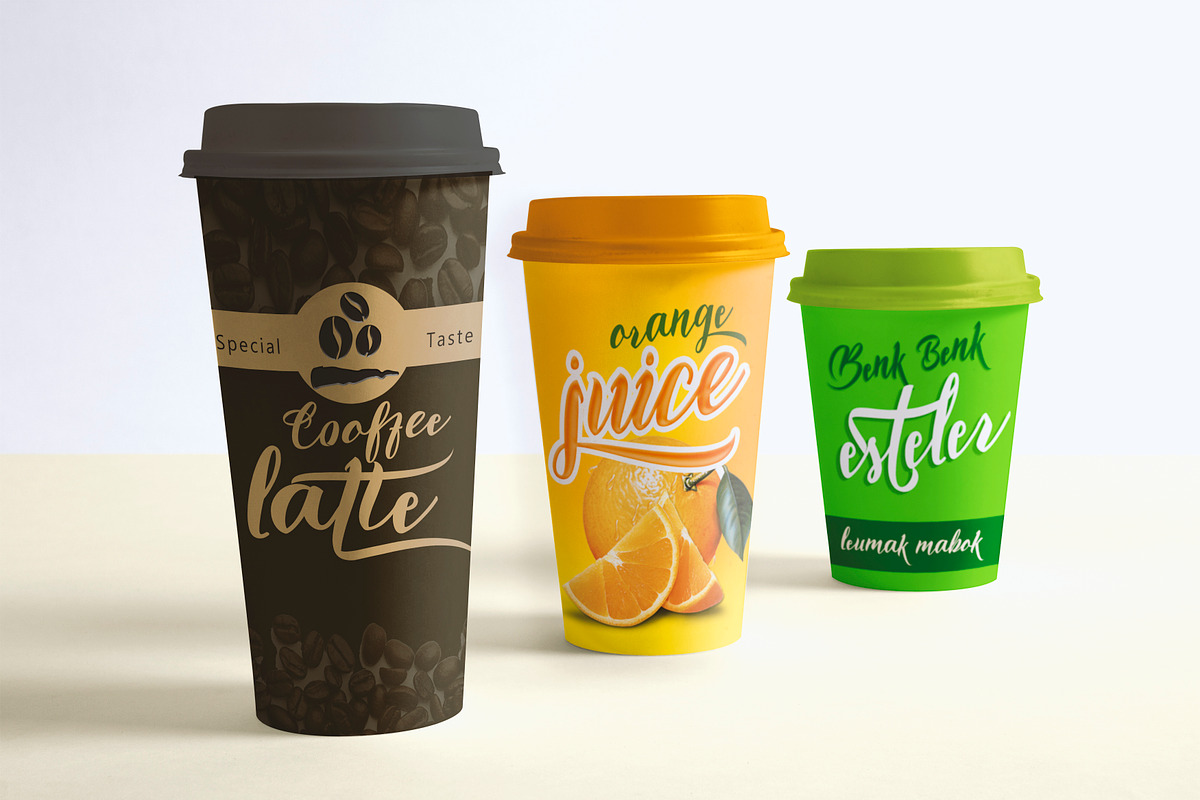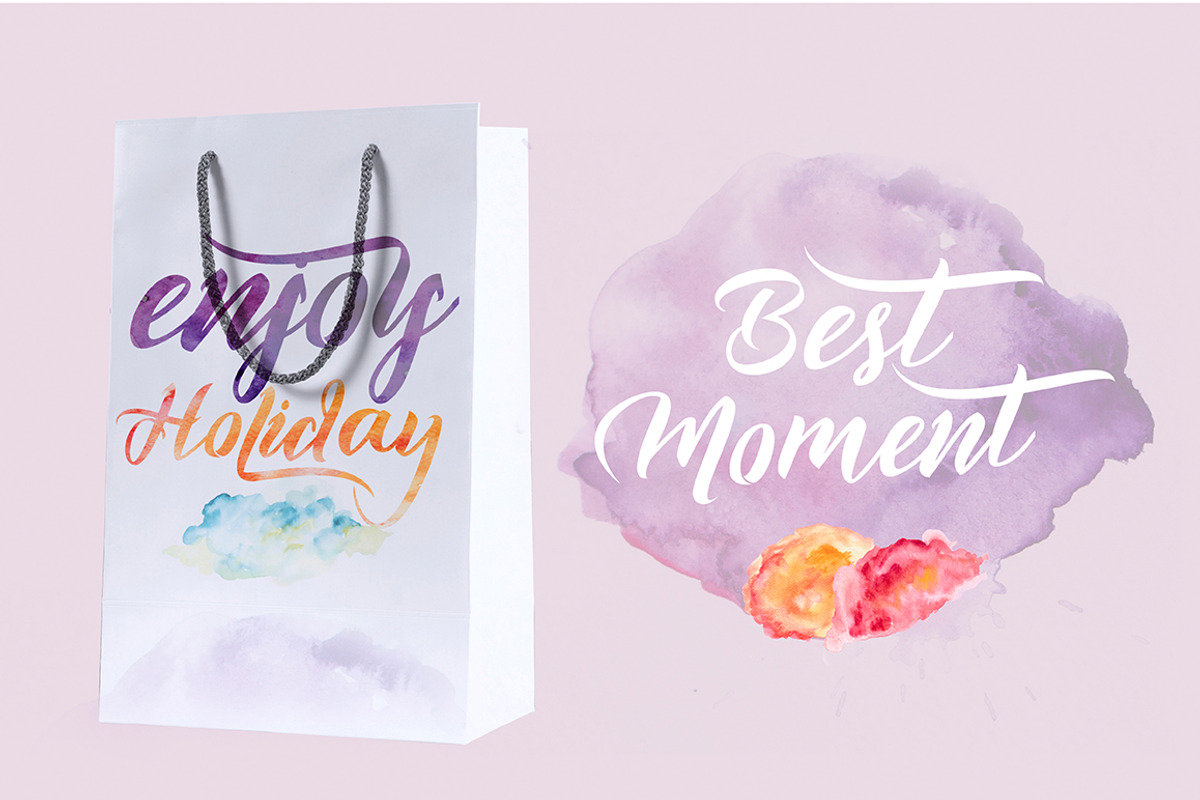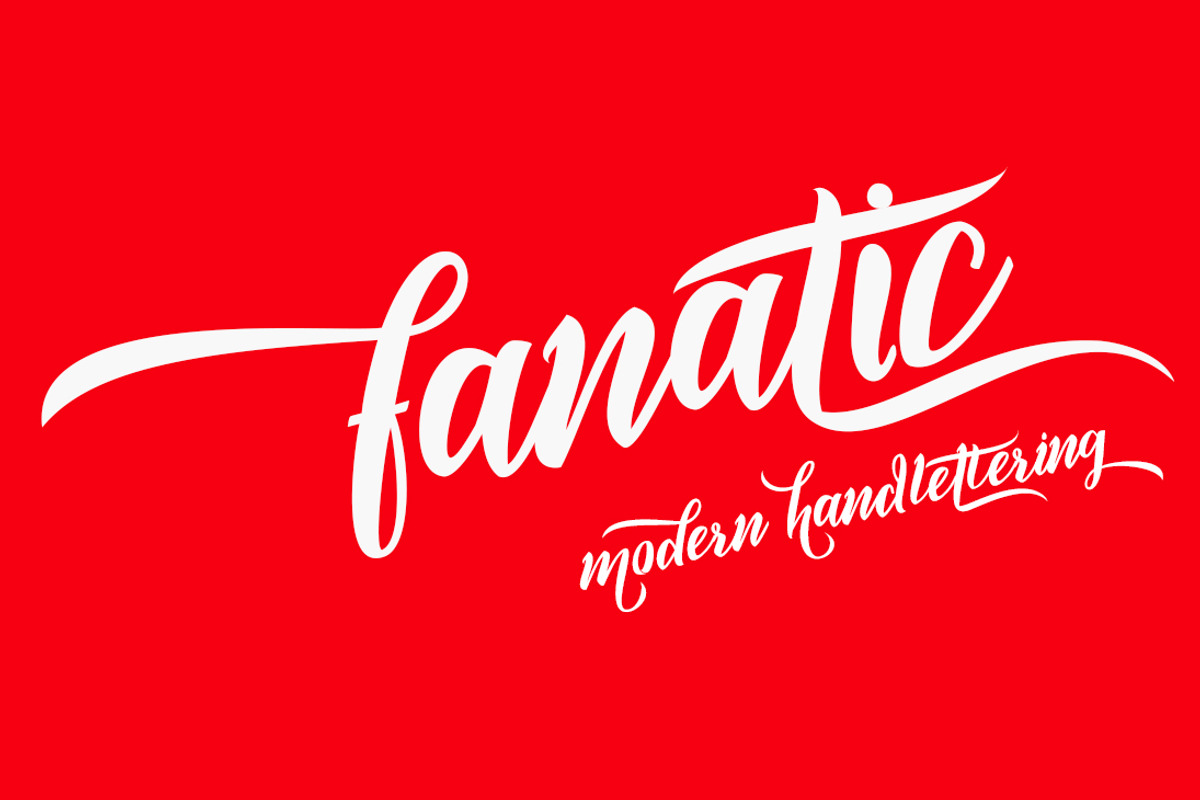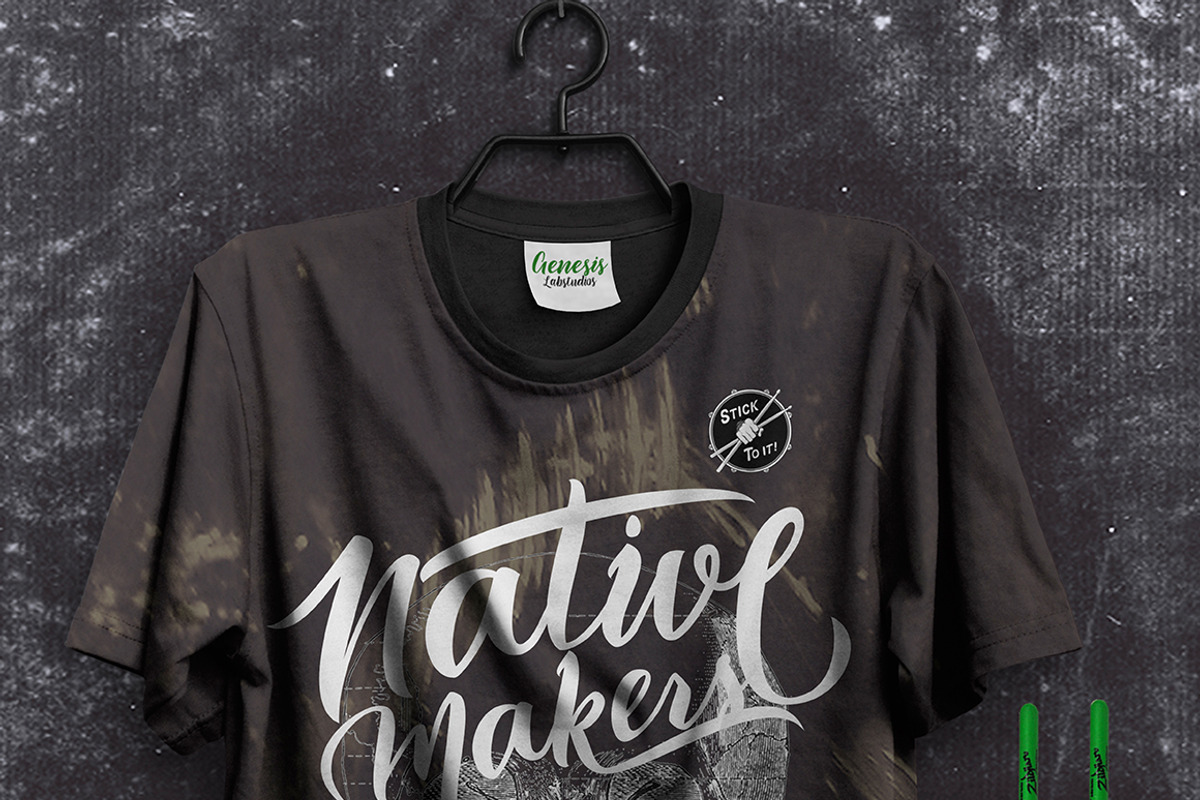
Fanatic Font
Fanatic Font by Genesis Lab is a font selected for branding, posters, packaging, typography.
- Initial Alternates
- Contextual Alternates
- Standard ligatures
- Unique ligatures
- Stylistic sets
- Swash
- Basic Latin A-Z and a-z
Why Fanatic Font is worth a look
Fanatic Font by Genesis Lab fits naturally into Branding, posters, packaging, typography.